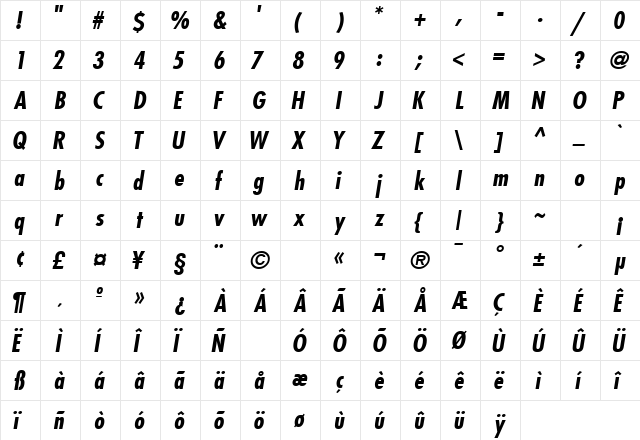
KudosBlackCondSSK Italic Font Preview
Design Context for KudosBlackCondSSK Typeface
KudosBlackCondSSK is a composed and adaptable typeface that performs quietly and consistently across a wide range of design contexts. The dynamic lean of this cut emphasises speed and emphasis in any layout. The condensed width makes it efficient for tight spaces without sacrificing legibility.
Pro Tip: Try KudosBlackCondSSK for annotation and caption copy alongside an upright companion — the contrast in angle creates a dynamic but ordered typographic system.